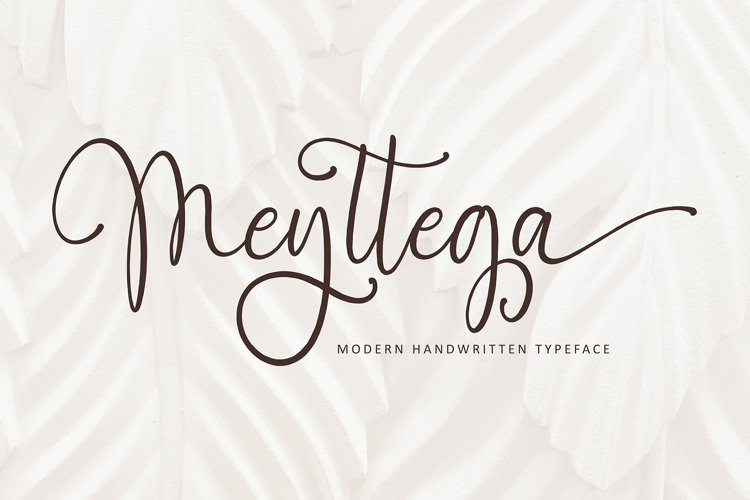
Meyttega Font
Meyttega FontMeyttega font with new style, this font will perfect for many different project ex: quotes, logo, blog header, poster, banding, letter, invitation, stationery, etc…